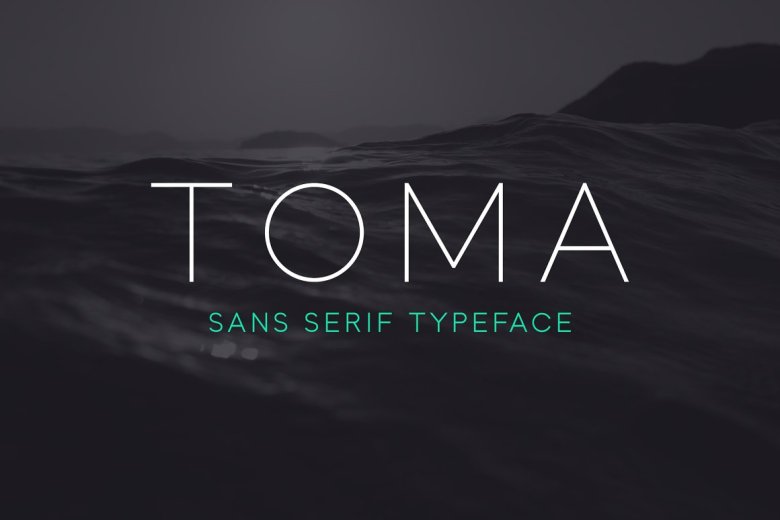
Toma Sans Font
Influenced by the geometric-style sans serif faces that were popular during the 1920s and 30s, Toma Sans is based on geometric forms that have been optically corrected for better legibility. This typeface has a functional look with a friendly open touch.
While the ExtraLight and the black weights are great performers in display sizes the light, regular and medium weights are well suited to longer texts. The small x-height and the restrained forms lend it a distinctive elegance. The typeface has an extended character set to support most European languages.
Toma Sans Serif Font